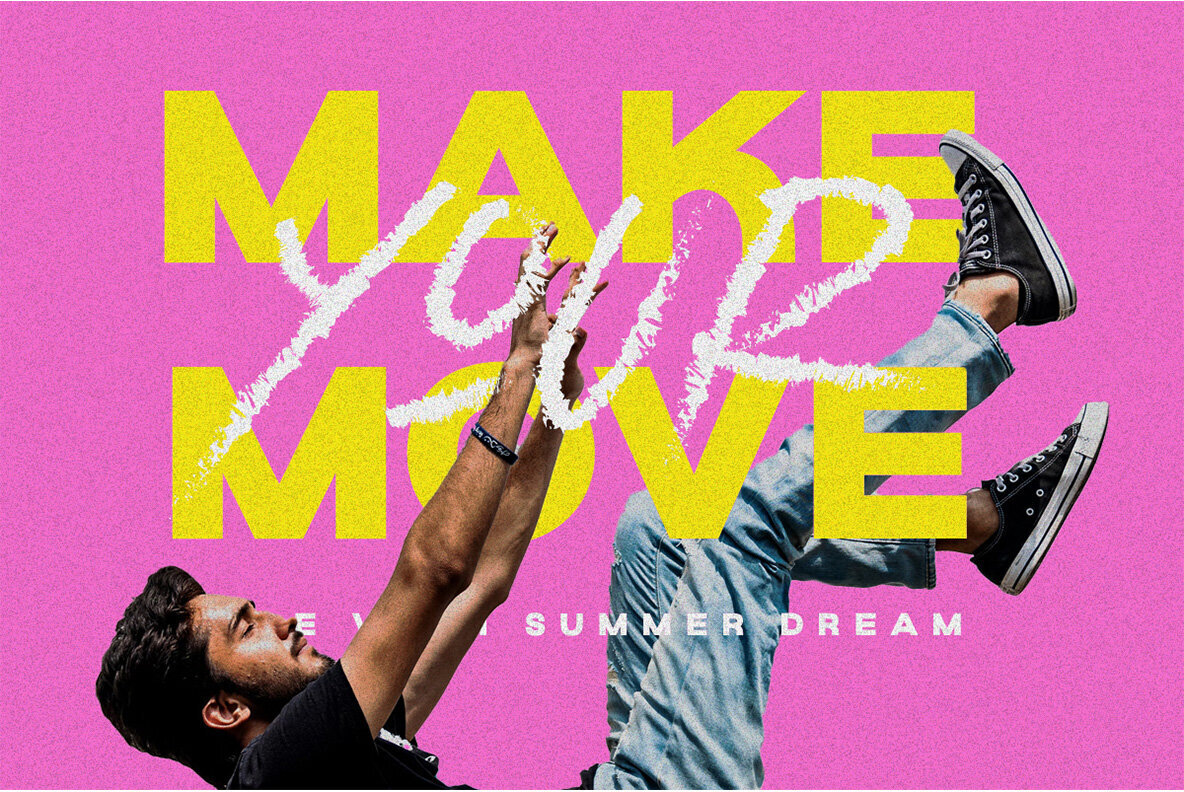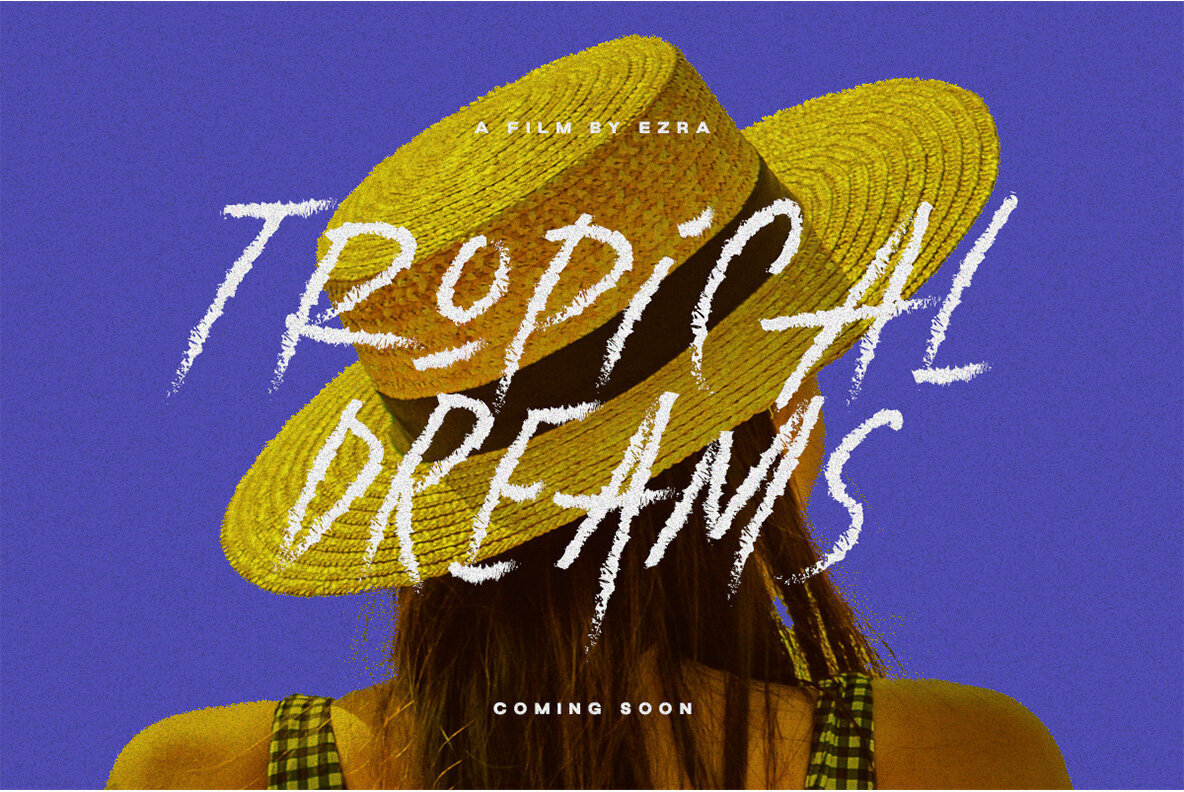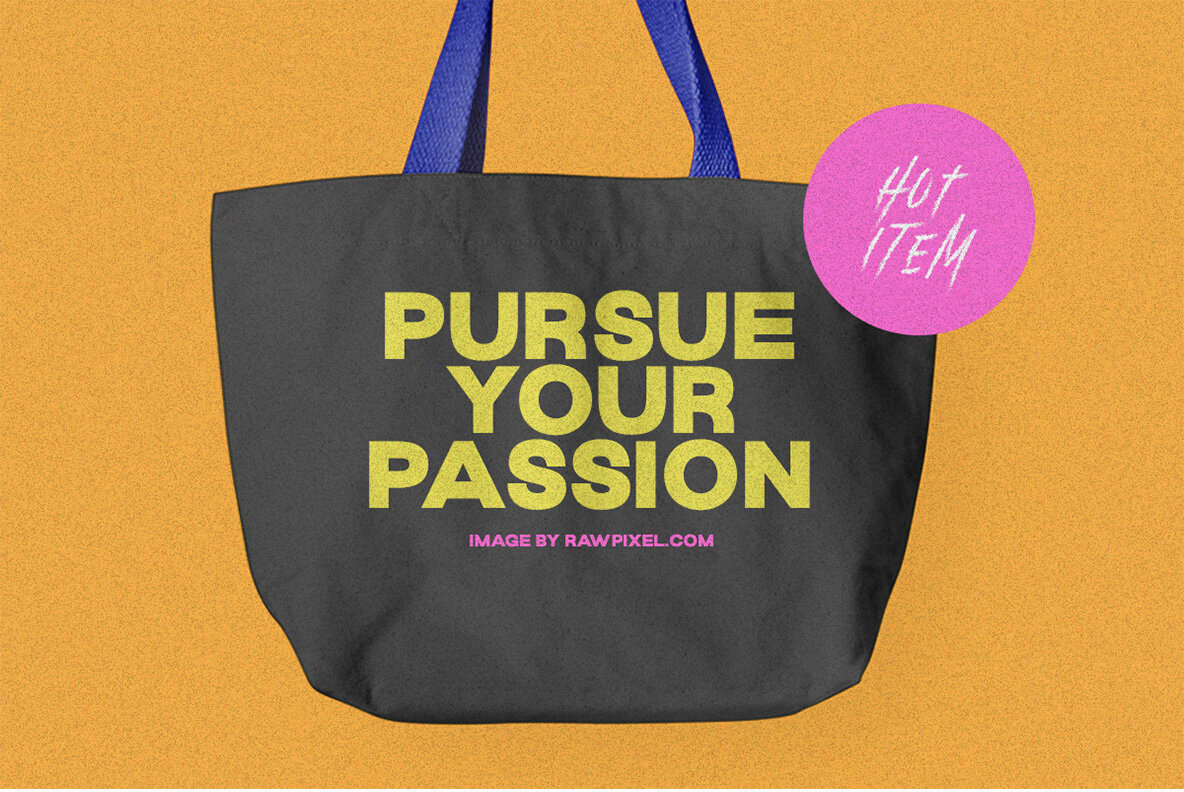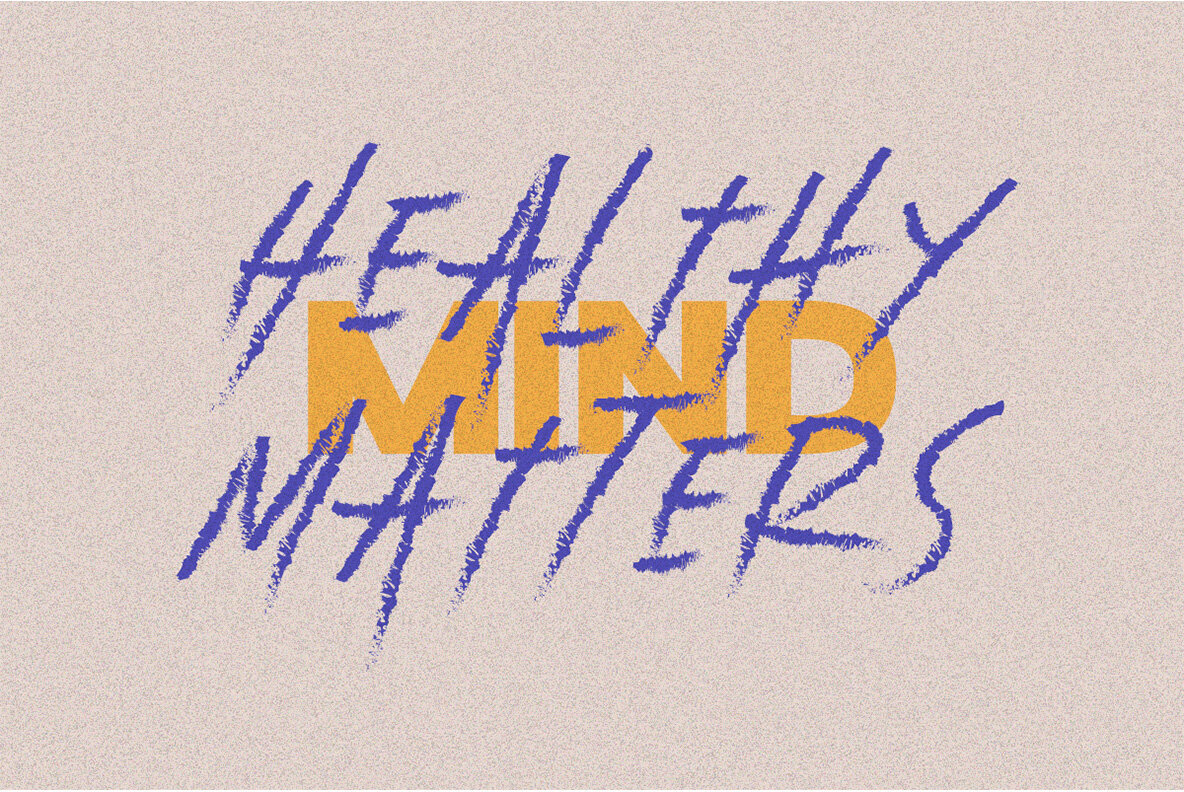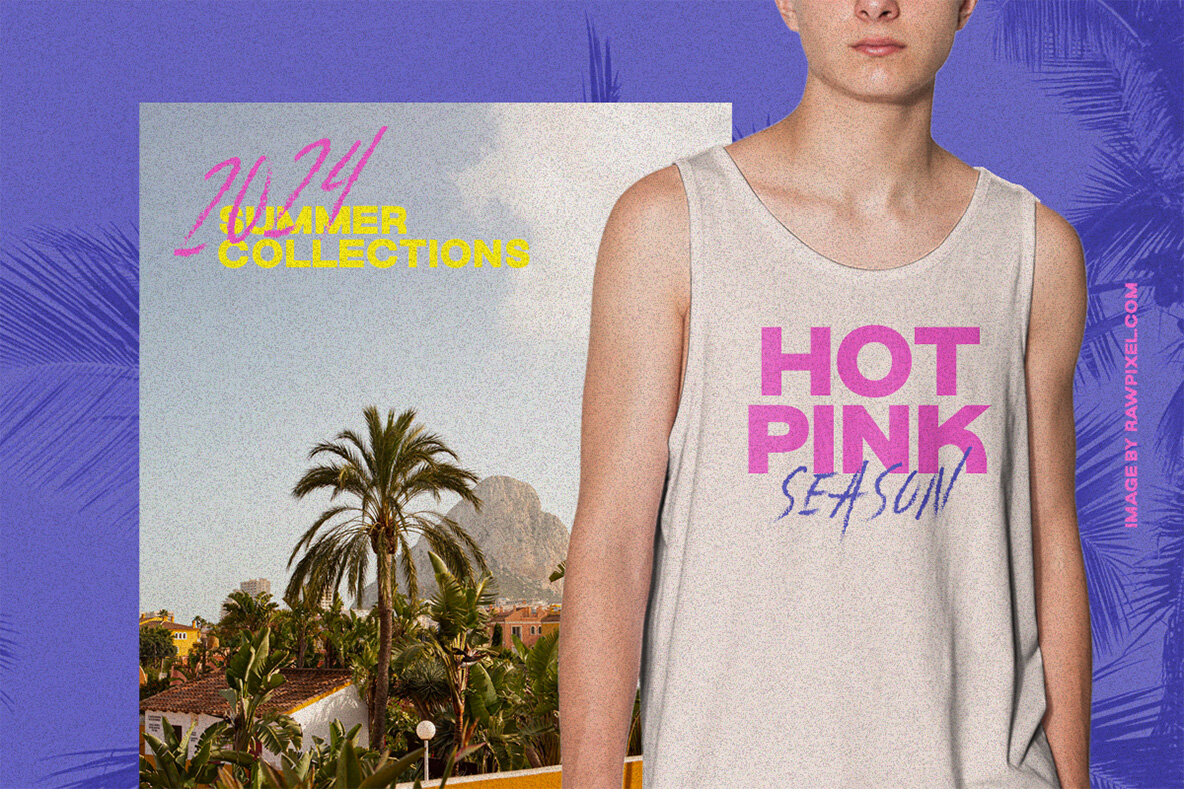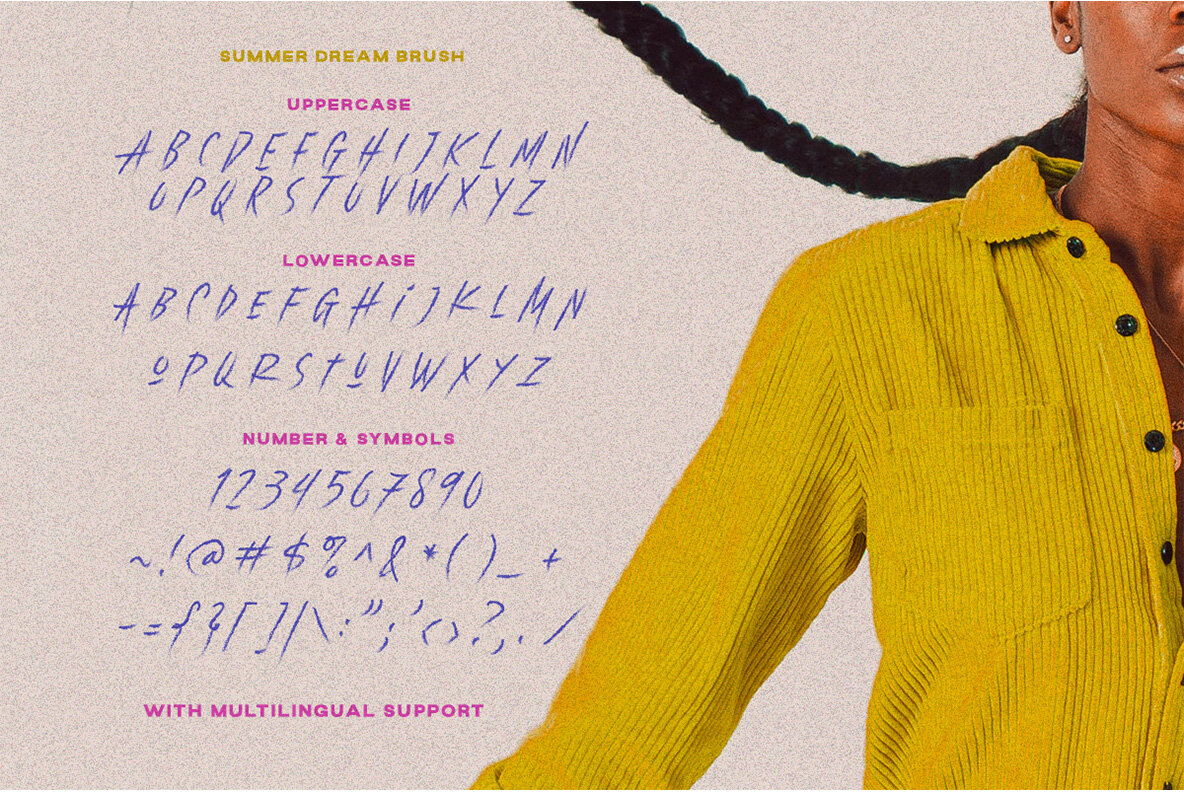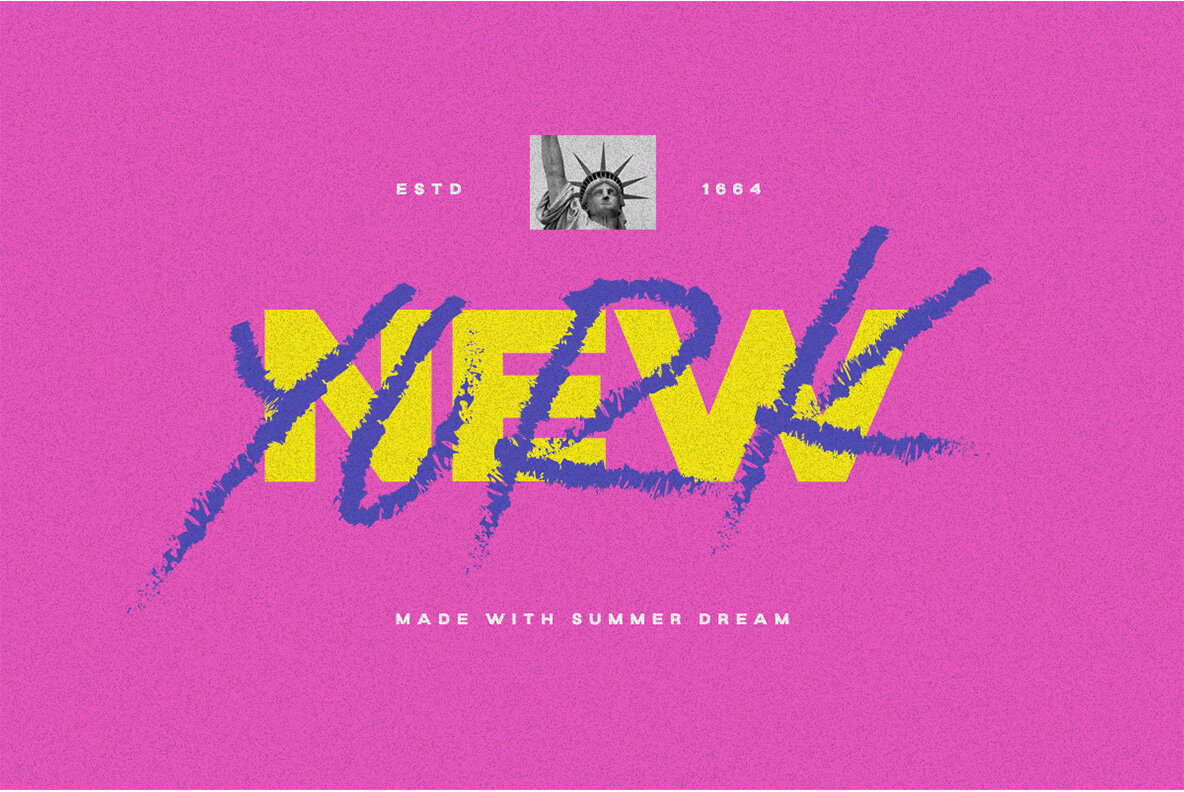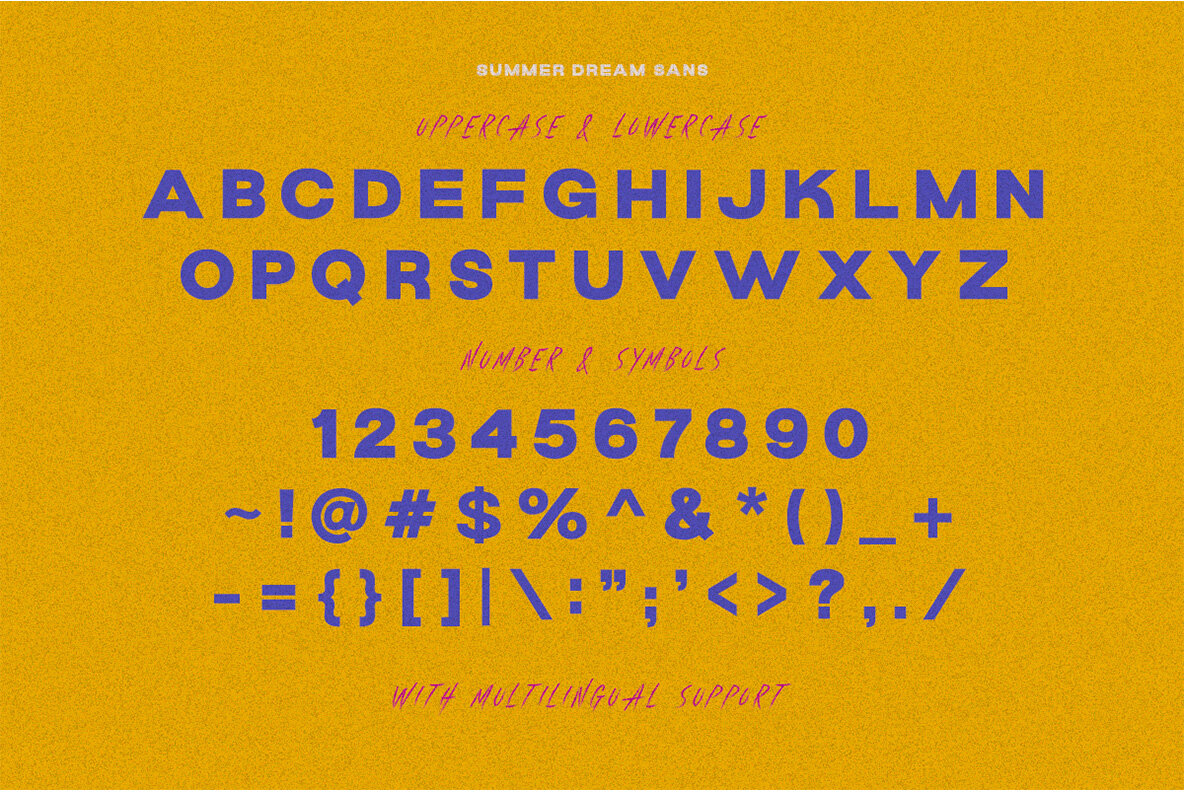
Summer Dream Font
Summer Dream Font Duo (2 fonts)
This font duo pack has a bold sans serif with rough script that looks great to be paired especially for vintage and adventure themed projects! You can use this design anywhere from logos & other formal forms like invitations/labels etc...